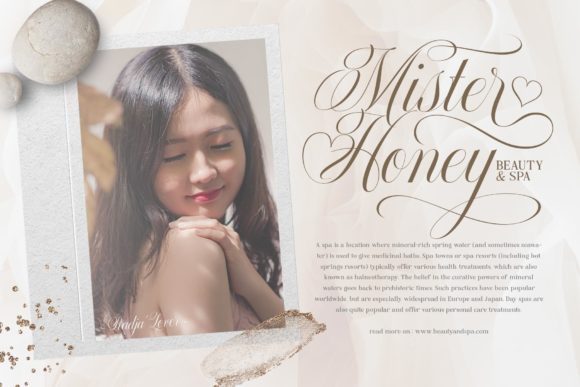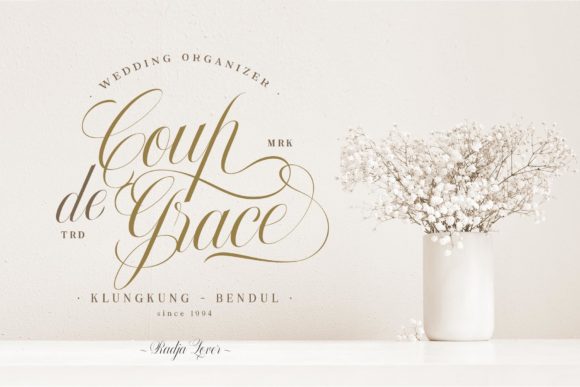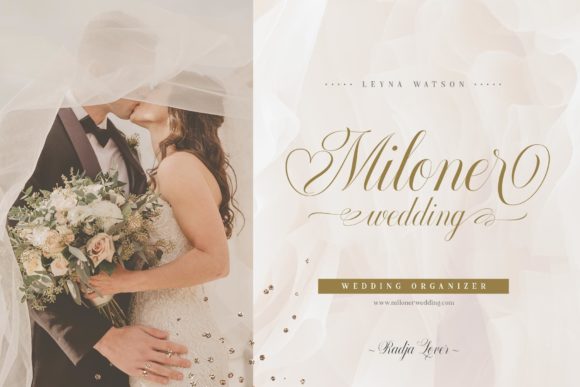
Radja Lover Script Font: Free Download Now
Introduction to Radja Lover Script Font
Radja Lover Script is a Valentine’s Day inspired font made for various romantic themes.
It adheres to a simple and elegant modern script style, besides that this font has a unique swash in the shape of a heart that can be used for unique love designs This font is PUA encoded which means you can access all of the glyphs and swashes with ease.
Radja Lover Script Font offers exceptional quality and versatility, making it a valuable addition to your design toolkit. Whether you’re creating for personal projects or commercial use, Radja Lover Script Font delivers professional results.